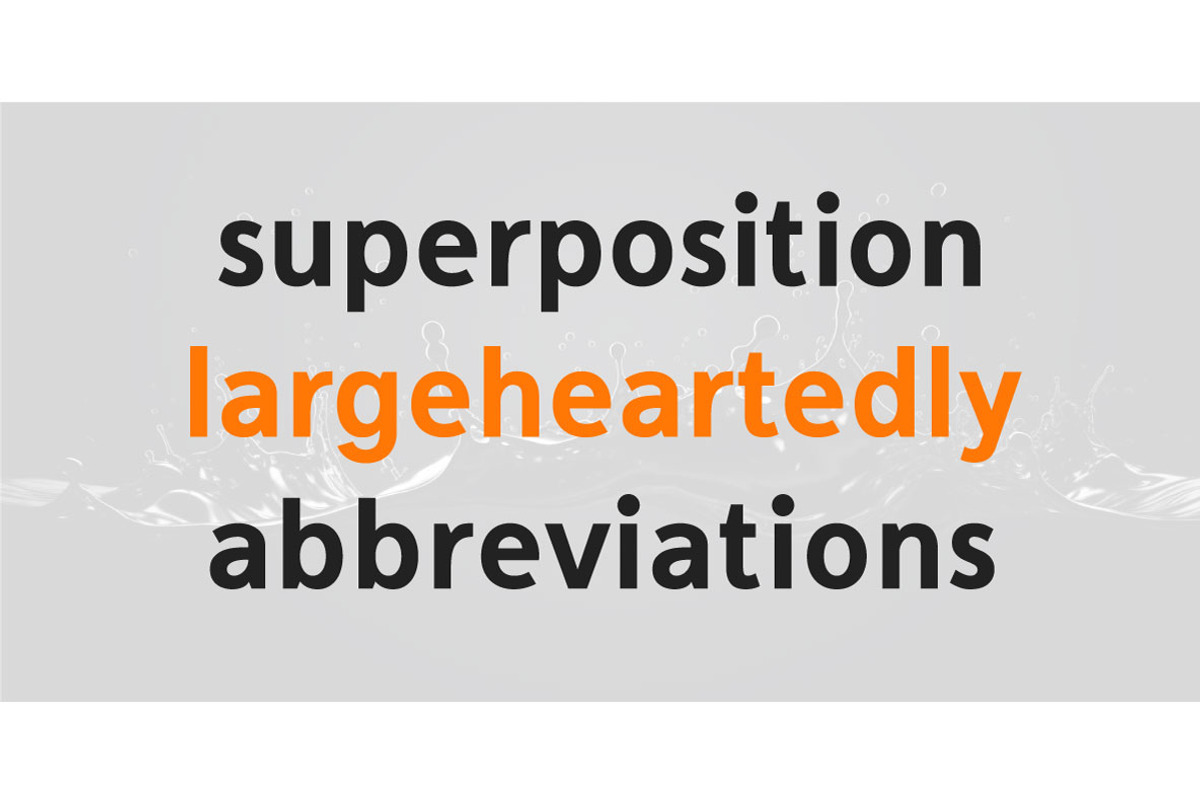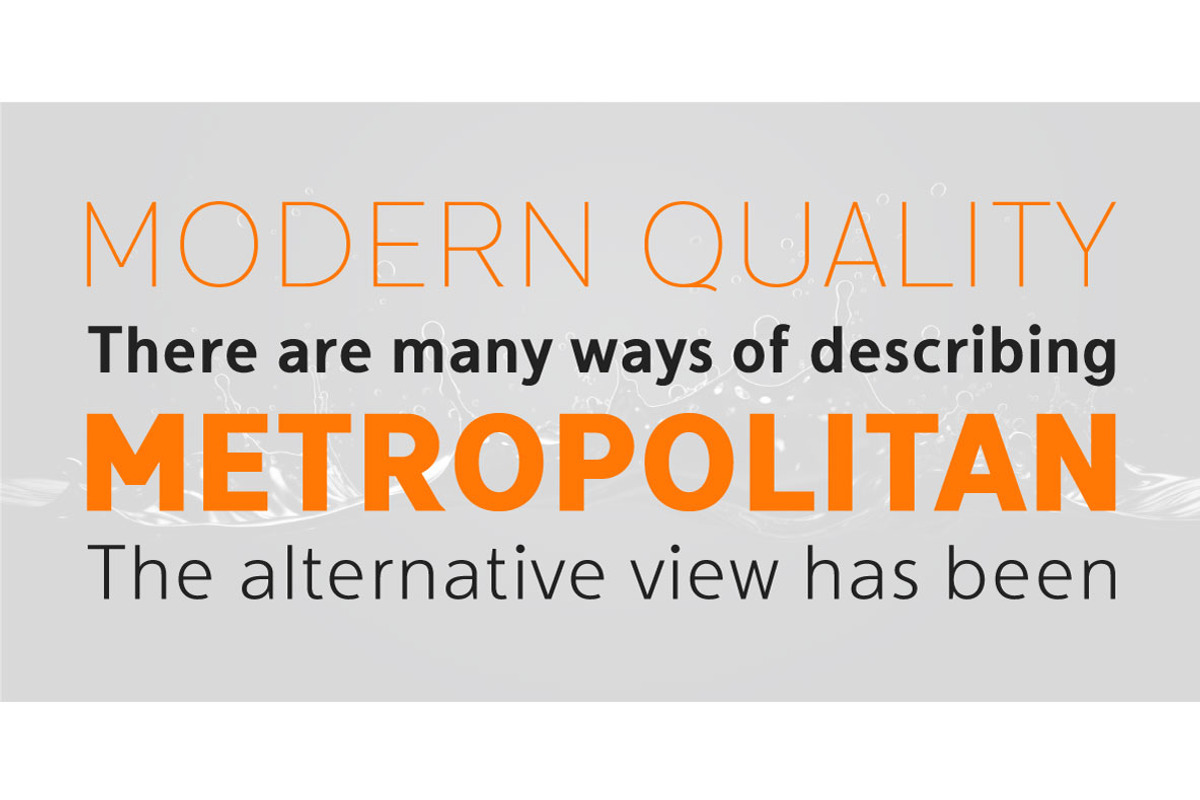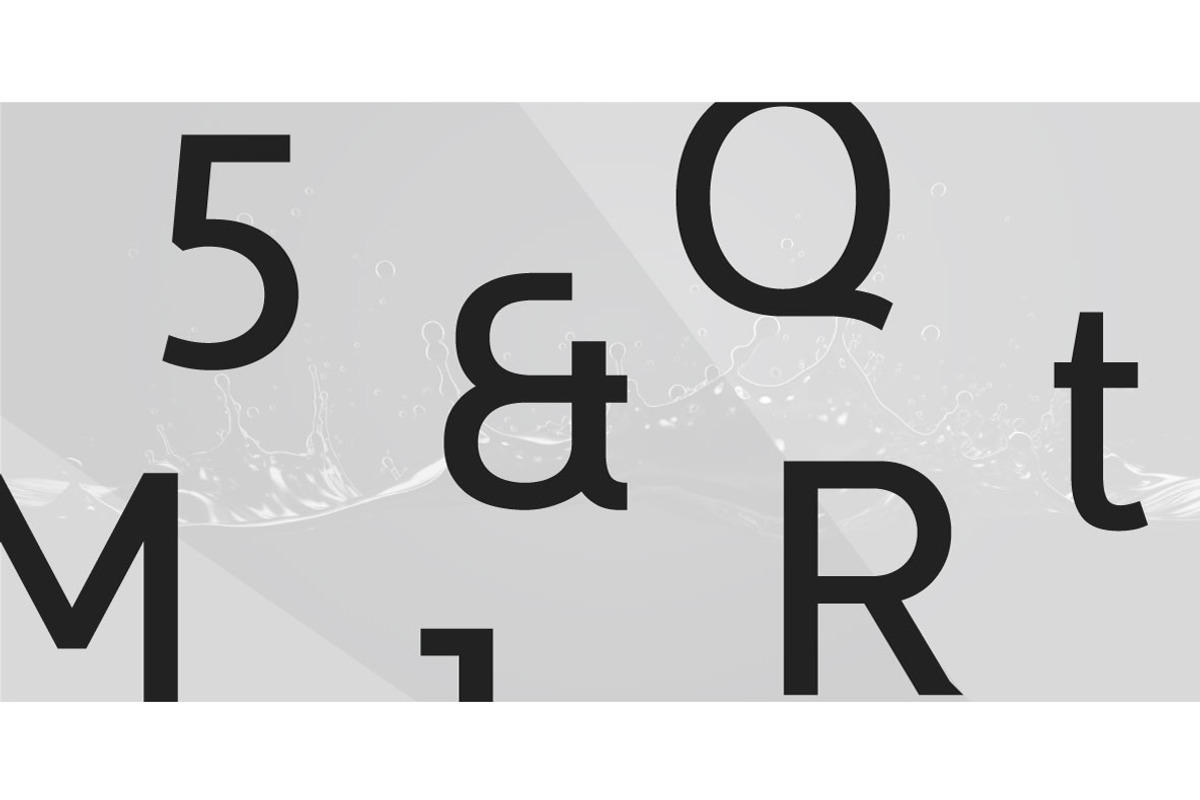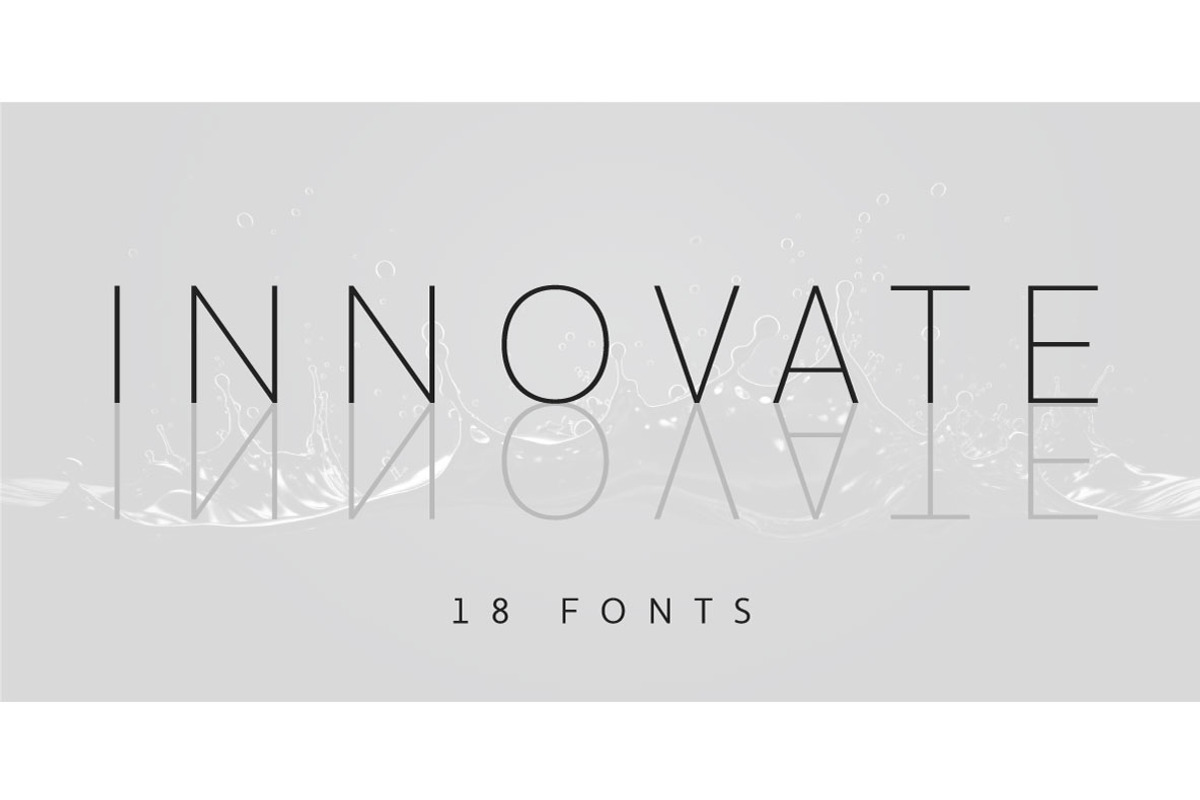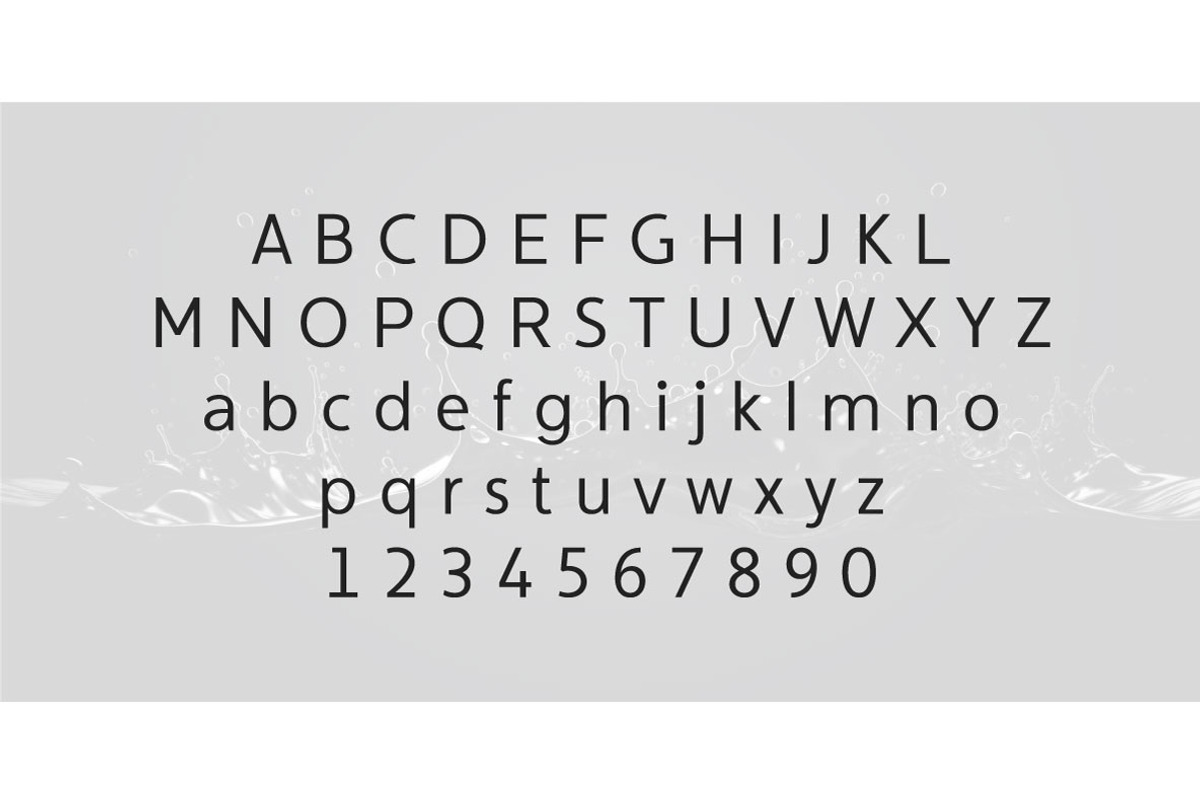
Innovate Complete Family
Innovate is a modern versatile sans-serif typeface. What differentiates Innovate from the other fonts is its exceptionally distinctive design. It is brilliantly suited for graphic design and display use and perfect for logotypes, t-shirts, packaging, brand identity, books, magazines, newspapers, posters, billboards, and advertising.